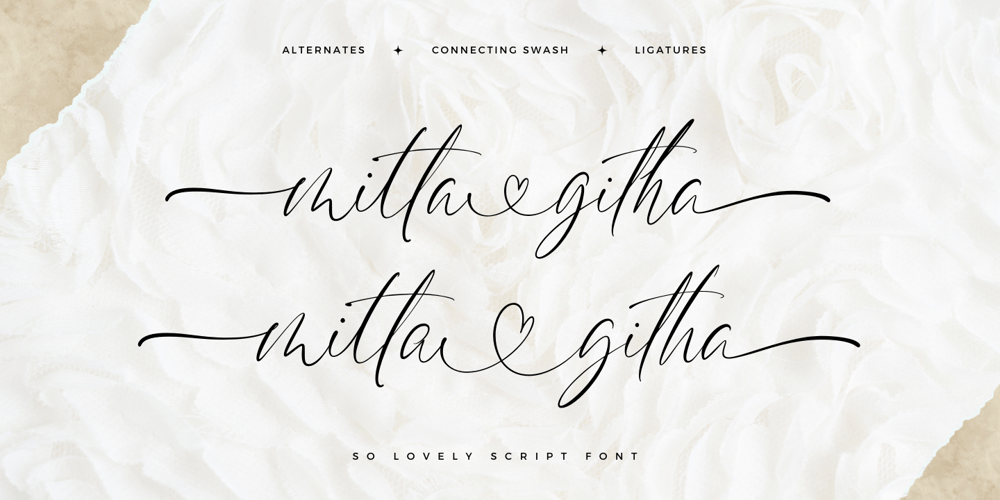
Mitta Githa Font Family was designed by Ainun Jinan and published by Jinan Studio. Mitta Githa contains 1 styles and family package options. “Mitta Githa” is more than just a font, it’s a vehicle for expressing love and style in your designs. With its carefully crafted letters, alternates, and romantic style, it empowers you to infuse your projects with a touch of elegance and heartfelt emotion. Whether you’re planning a Wedding, crafting a Valentine’s Day surprise, or adding a loving touch to your design project, “Mitta Githa” will be your faithful companion in delivering messages of love and style.Features A set of uppercase and lowercase glyphs Number, symbol, and punctuation Multilingual Support Alternates and ligatures Heart Connecting So easy to use Heart ConnectingAccess by keyboard Key plus ‘ + ‘ to feature Heart Connecting 1 Key equal ‘ = ‘ to feature Heart Connecting 2